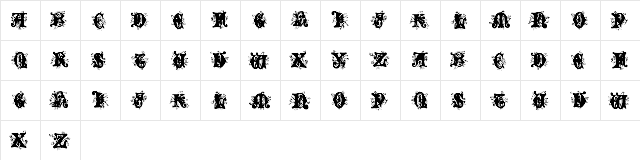
Angel Normal Normal Font Preview
Angel Normal Normal
Design Context for Angel Normal Typeface
Angel Normal is a composed and adaptable typeface that performs quietly and consistently across a wide range of design contexts.